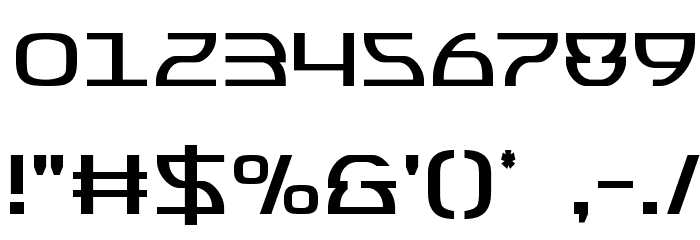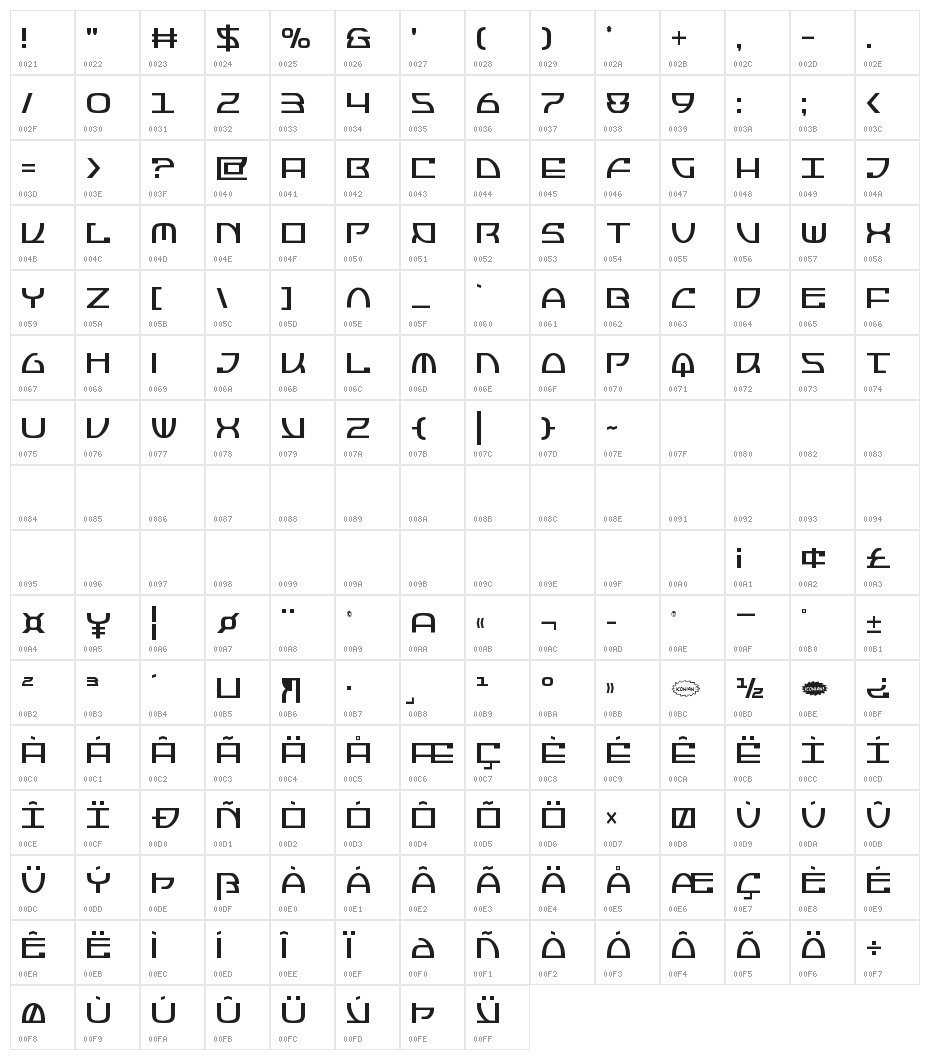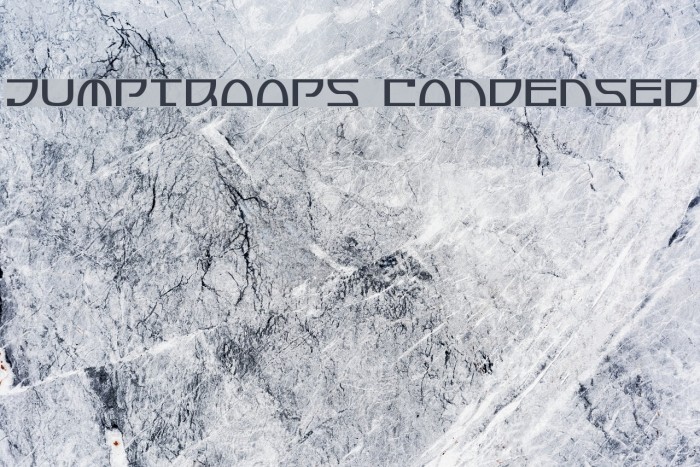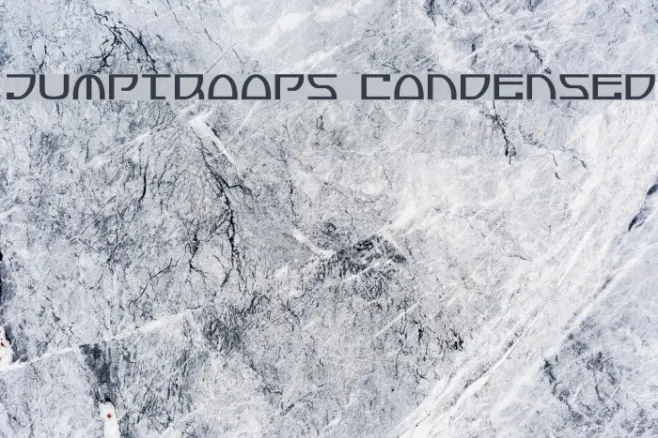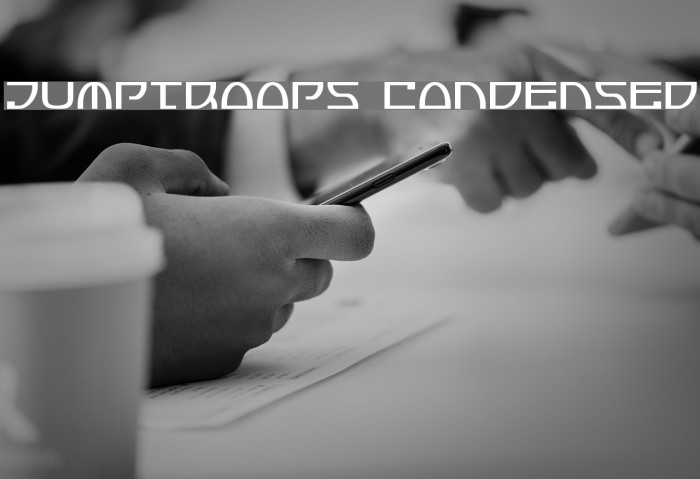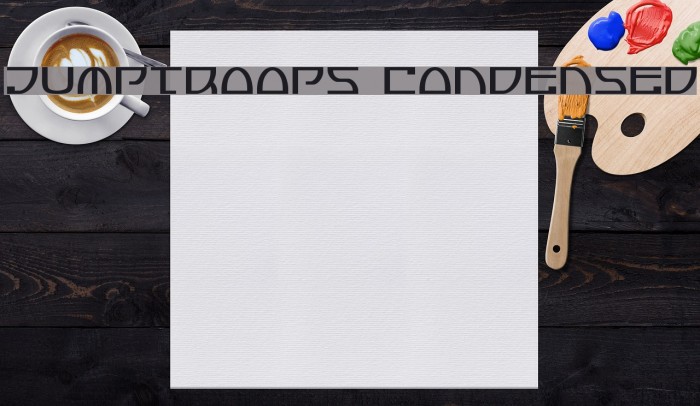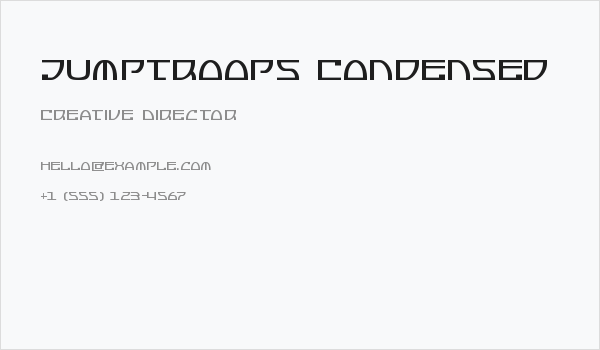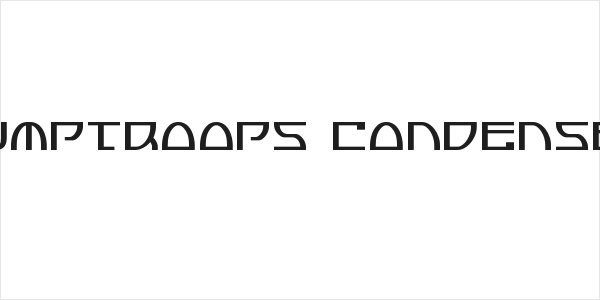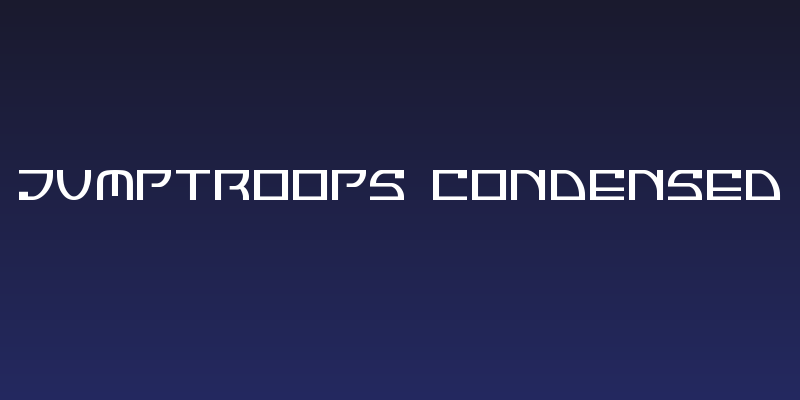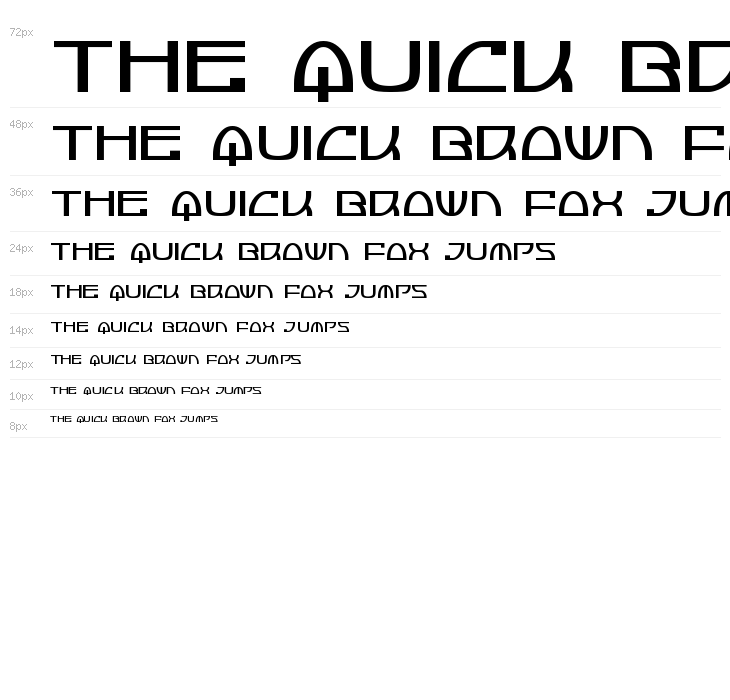
Jumptroops Condensed Font
Jumptroops Condensed Description
This font features a futuristic and geometric design, characterized by its sharp angles and clean lines. The characters are condensed, giving it a compact appearance, which is ideal for creating a modern and edgy look. The uppercase and lowercase letters maintain a consistent style, with unique cutouts and shapes that add a distinctive flair. The numerals and special characters follow the same design principles, ensuring uniformity across all glyphs. This font is perfect for projects that require a bold and contemporary aesthetic.
| Proposed Projects | Ideal for sci-fi themed designs, tech branding, modern posters, and digital interfaces. |